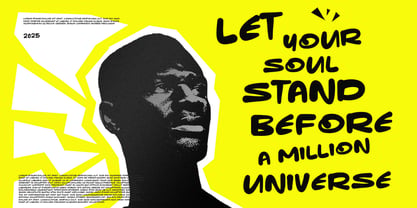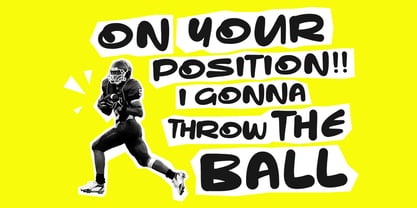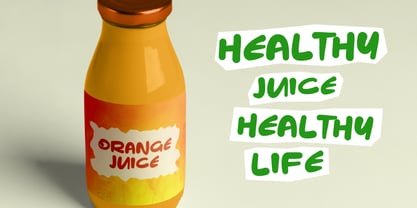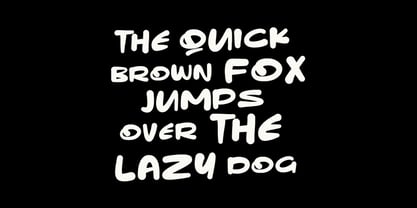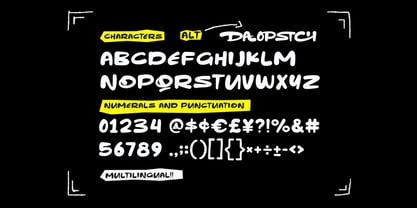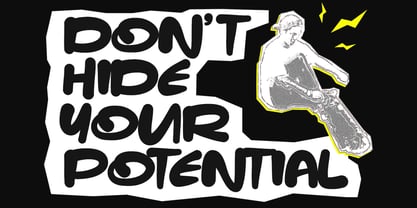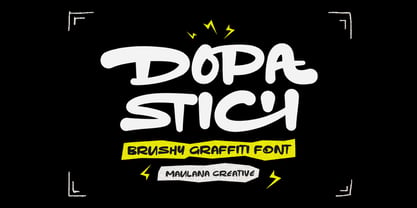
MC Dopa Stich
por Maulana Creative
La familia tipográfica MC Dopa Stich fue diseñada por Gilang Maulana y publicada por Maulana Creative. MC Dopa Stich contiene 1 estilos. Más información sobre esta familia
Dopa Stich is a graffiti brush display handwritten font. With bold stroke, fun character with a bit of alternates. To give you an extra creative work. Dopa Stich font support multilingual more than 100+ language. This font is good for logo design, Social media, Movie Titles, Books Titles, a short text even a long text letter and good for your secondary text font with sans or serif. Make a stunning work with Dopa Stich font.
Diseñadores: Gilang Maulana
Fundición: Maulana Creative